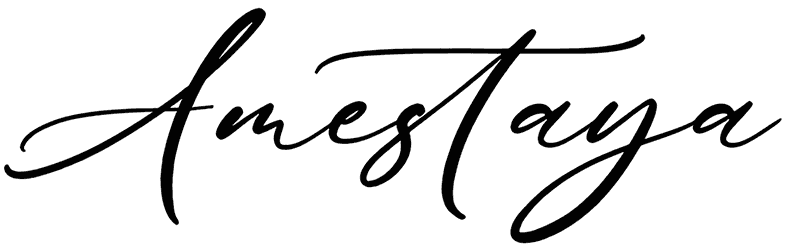
Amestaya Font
For creating a unique personality and organic design, we invite you to take a look at Amestaya. This handwriting and calligraphy font with curved and thin lines gives a natural feel that would be great for envelopes, book covers, romantic movie titles, posters, and flyers.